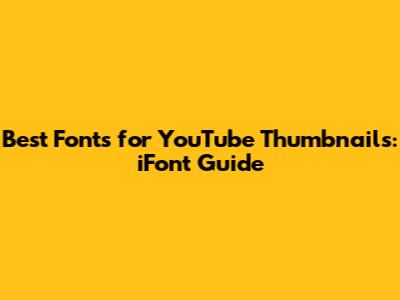
- Readability is Key: Your thumbnail text needs to be easily readable, even at a small size. If viewers can't quickly understand what your video is about, they're likely to move on. Choose fonts that are clear, crisp, and legible.
- Brand Consistency: Using consistent fonts across your thumbnails helps to establish your brand identity. Viewers will start to recognize your style and associate it with your channel, making your content more memorable.
- Emotional Impact: Fonts can evoke different emotions and feelings. A bold, impactful font can create a sense of excitement or urgency, while a softer, more elegant font might convey a feeling of calm or sophistication. Think about the message you want to send and choose a font that aligns with it.
- Stands Out from the Crowd: In a sea of thumbnails, you need something that grabs attention. A unique and well-chosen font can help your thumbnail stand out and pique viewers' curiosity.
- Huge Font Library: iFont boasts a massive collection of fonts, from classic styles to quirky and unique designs. You're sure to find something that fits your brand and the theme of your videos.
- Preview Feature: Before you commit to a font, iFont lets you preview it with your own text. This is super helpful for seeing how the font will actually look in your thumbnail design.
- Bebas Neue: A classic sans-serif font that's tall, clean, and highly readable. It's a great choice for titles and headlines.
- Impact: As the name suggests, Impact is a bold and condensed font that really stands out. Use it sparingly for maximum effect.
- Roboto Black: A heavier version of the popular Roboto font, perfect for adding emphasis to your text.
- Montserrat ExtraBold: A modern and geometric sans-serif font that's both stylish and highly readable.
- Open Sans: A versatile and highly readable sans-serif font that works well in a variety of contexts.
- Lato: A clean and modern sans-serif font with a slightly rounded feel. It's a great choice for body text and smaller headlines.
- Raleway: A stylish sans-serif font with a slightly condensed design. It's a good choice for adding a touch of elegance to your thumbnails.
- Poppins: A geometric sans-serif font that's both modern and highly readable. It's a great choice for a variety of applications.
- Bangers: A comic book-inspired font that's bold, fun, and attention-grabbing.
- Luckiest Guy: A handwritten-style font that's casual and friendly.
- Amatic SC: A hand-drawn sans-serif font that's quirky and unique.
- Permanent Marker: A font that looks like it was written with a permanent marker, perfect for adding a personal touch.
- Lemon Milk: Font is a free sans serif typeface. This font has a variety of weights and styles and is suitable for headlines and logos.
- Great Vibes: Font is a beautiful cursive script that has amazing swirls. This font is suitable for posters.
- Install the Font: After the font is downloaded, tap the "Install" button. iFont will guide you through the installation process, which typically involves installing a profile in your device's settings. Don't worry, it's super easy!
- Use the Font in Your Thumbnail Design App: Once the font is installed, it will be available in your favorite thumbnail design app, such as Canva, Adobe Spark Post, or PicsArt. Simply select the font from the font list and start creating your awesome thumbnail!
- Consider Your Brand: Choose fonts that align with your brand's personality and style. Are you fun and playful, or serious and professional? Your font choice should reflect that.
- Think About Your Target Audience: Who are you trying to reach with your videos? Choose fonts that will appeal to your target audience.
- Prioritize Readability: No matter how stylish a font is, it's useless if it's not readable. Make sure your thumbnail text is easy to read at a glance.
- Use Contrast: Choose fonts that contrast well with the background of your thumbnail. This will help your text stand out and be more visible.
- Limit Your Font Choices: Don't use too many different fonts in your thumbnail design. Stick to one or two fonts for a cohesive and professional look.
- Test, Test, Test: Experiment with different fonts and see what works best for your thumbnails. Get feedback from friends or other YouTubers to see what they think.
Remember, your thumbnails are like mini-billboards for your videos. Make them count!